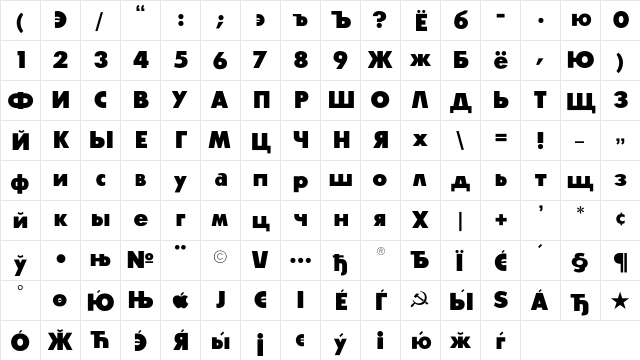
GlasnostExtrabold Regular
Design Context for GlasnostExtrabold Typeface
GlasnostExtrabold offers clean, dependable letterforms without strong stylistic allegiance, making it a practical choice for designers who need flexibility. Its bold stroke weight gives it real presence on the page.